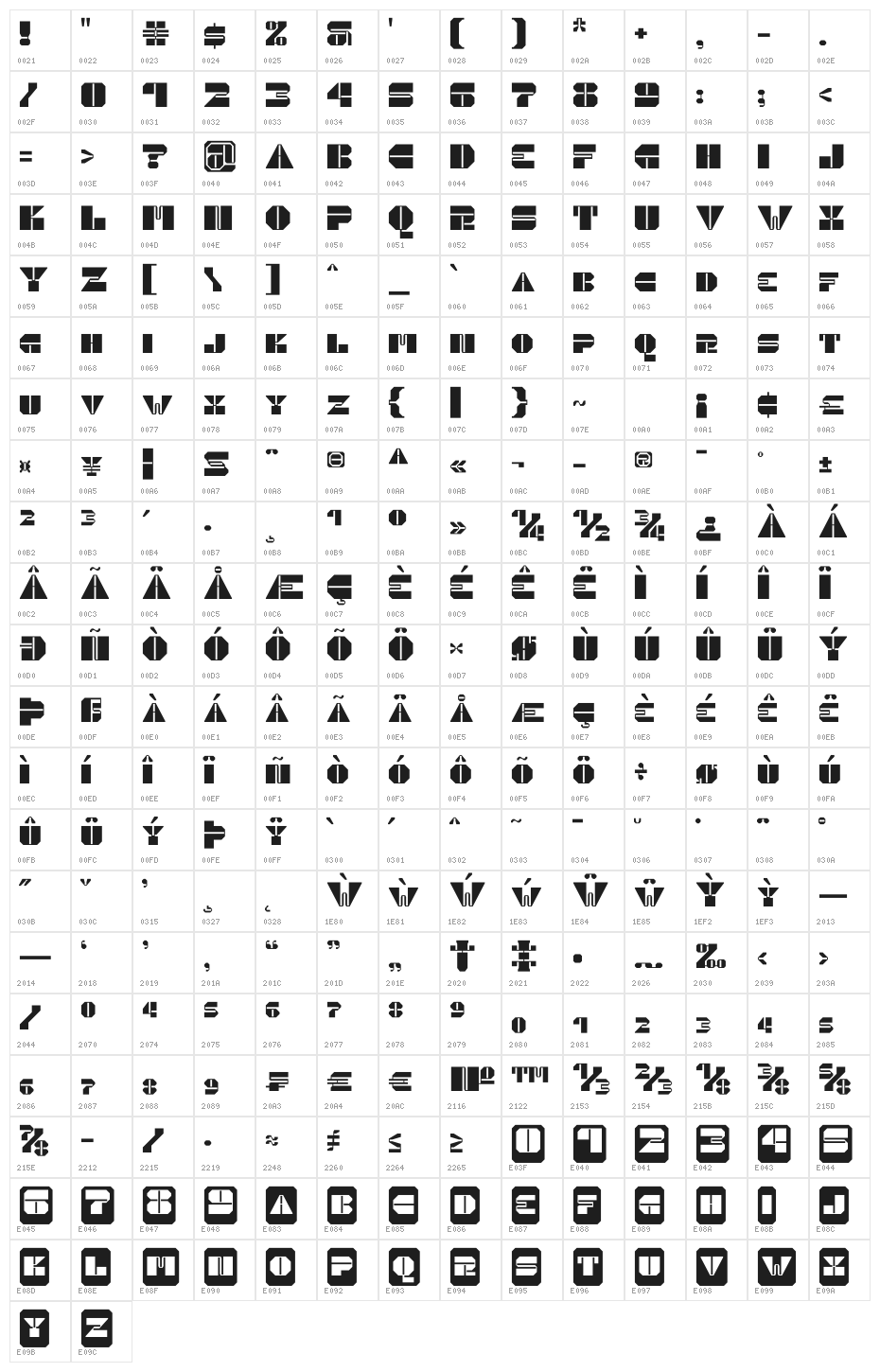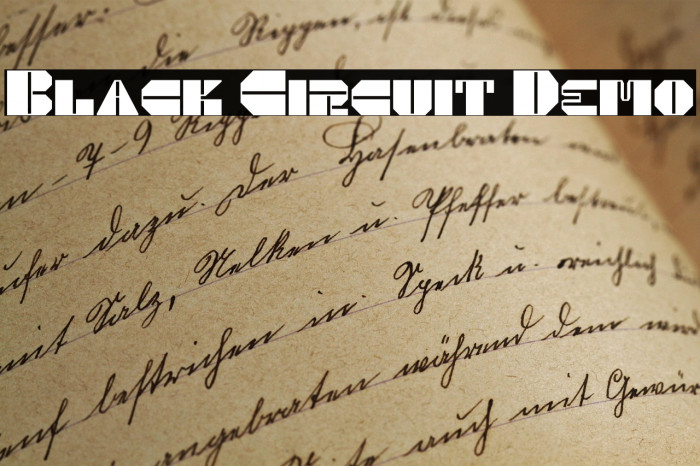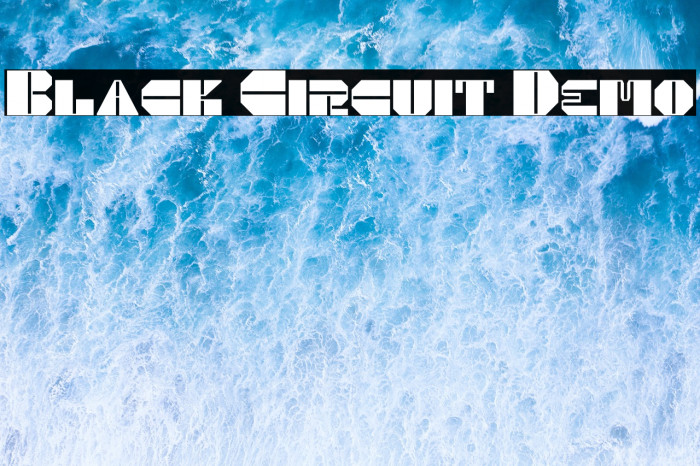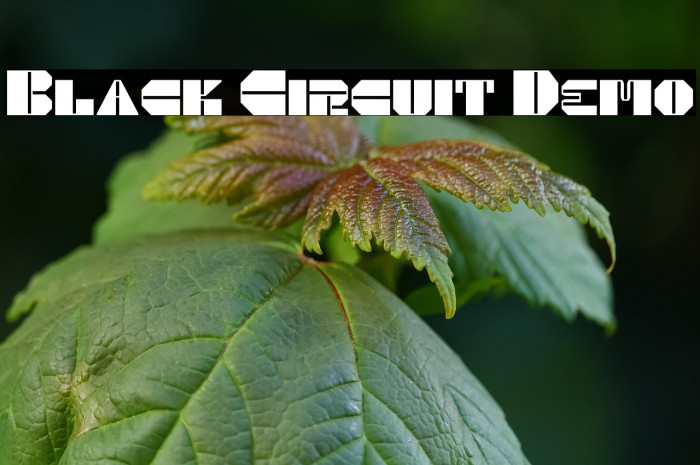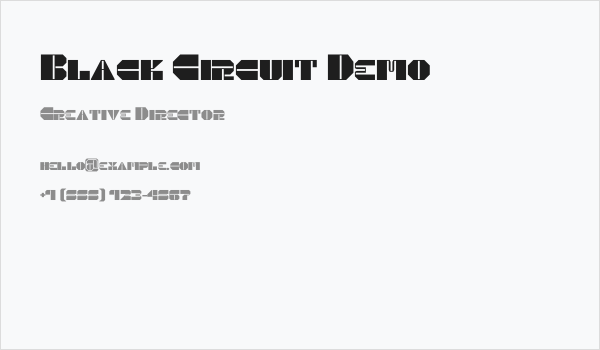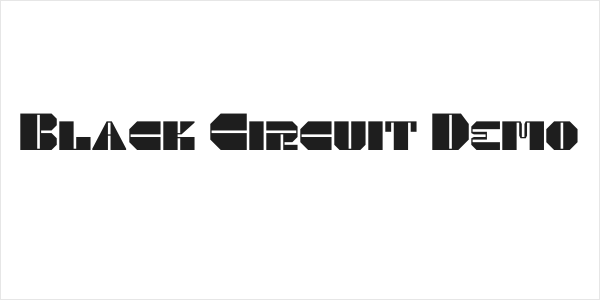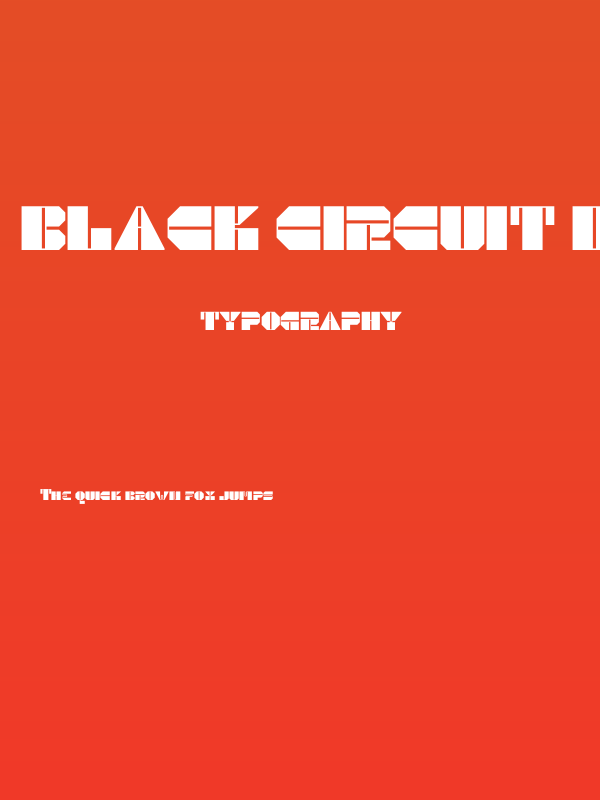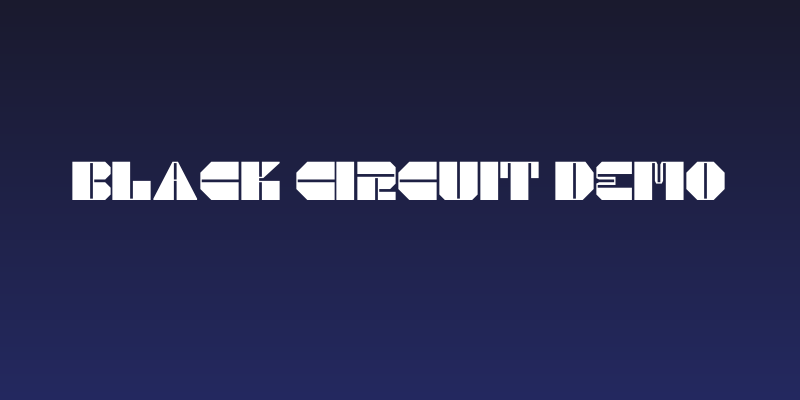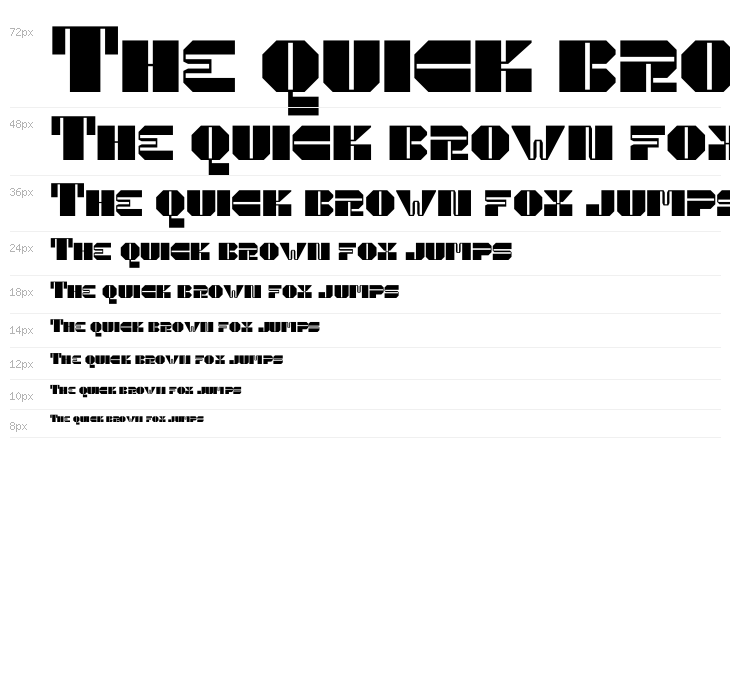
Black Circuit Demo Font
Black Circuit Demo Description
This font exhibits a bold and futuristic design, characterized by its geometric and angular shapes. Each character is constructed with a series of sharp edges and block-like forms, creating a sense of modernity and technological influence. The uppercase and lowercase letters maintain a consistent style, with a uniform thickness that emphasizes the font's boldness. The numbers and special characters follow the same design principles, ensuring a cohesive look across all elements. The font's unique style makes it stand out, ideal for projects that require a strong visual impact.
| Overall Style | Futuristic, Modern |
| Proposed Projects | Ideal for technology branding, sci-fi themed designs, video game interfaces, and modern posters. |